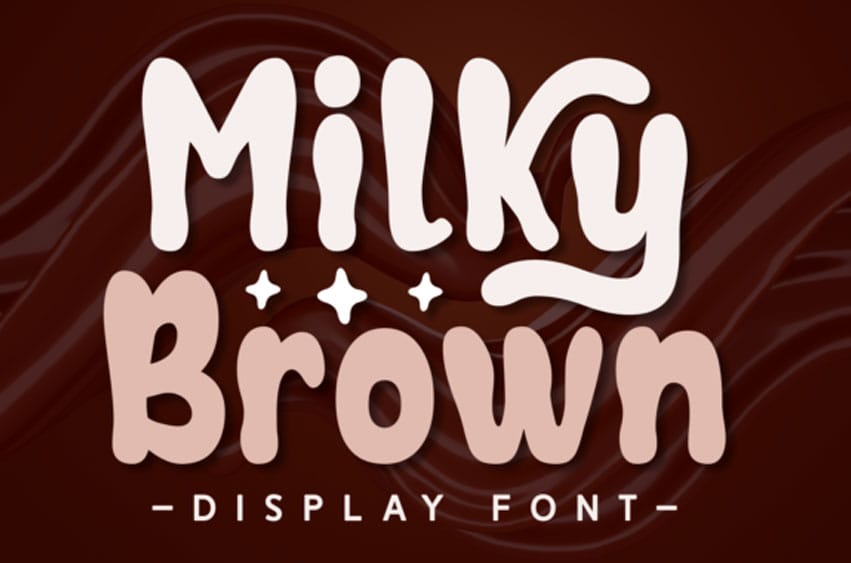
Milky Brown Font is a versatile display font capable of taking any item out of the ordinary!
Use it to create fantastic logos, banners, posters, covers, storybooks, stationery, branding, cards, and so much more.